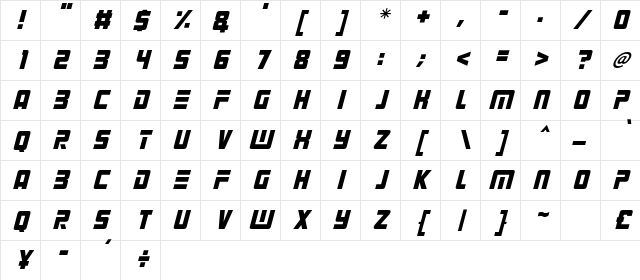
Complete Alien Android Italic glyph index. Displaying only characters natively supported by Alien Android Italic font.
Alien Android is a composed and adaptable typeface that performs quietly and consistently across a wide range of design contexts. The slanted form adds forward momentum and visual energy.